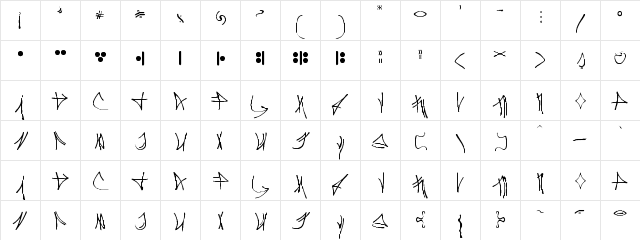
Naamu Regular
Design Context for Naamu Typeface
Naamu is a composed and adaptable typeface that performs quietly and consistently across a wide range of design contexts.